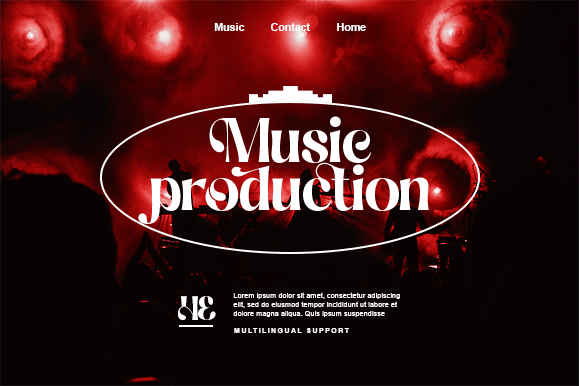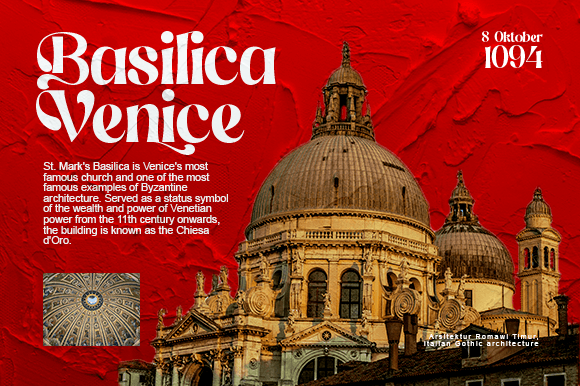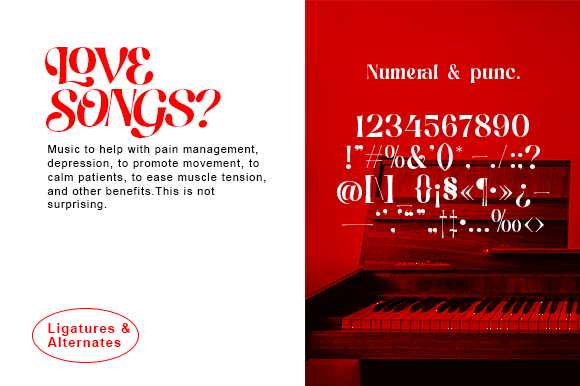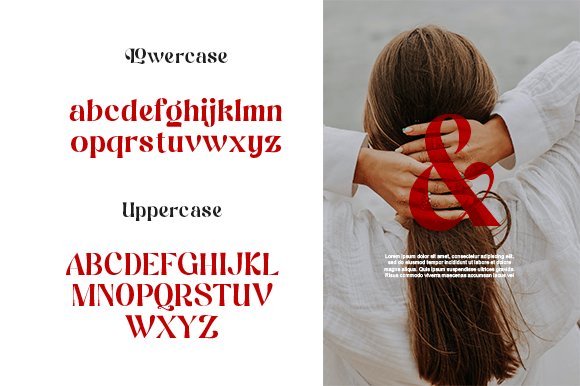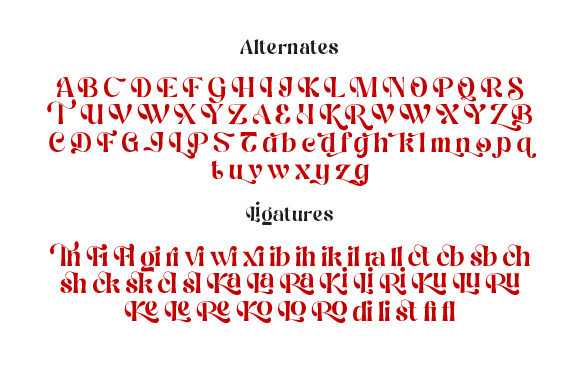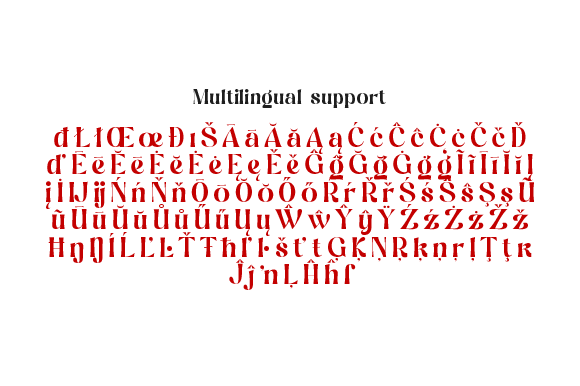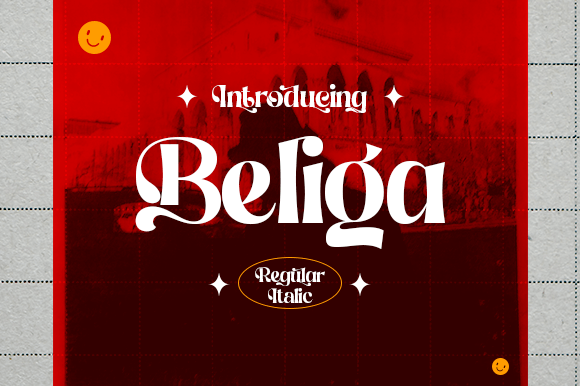
Introducing Beliga Font: Elevate Your Designs with Luxurious Elegance
In the world of typography, a font can make or break the aesthetic appeal of a design project. For designers and crafters seeking to infuse their creations with sophistication and luxury, the Beliga font is an exceptional choice. This stunning serif font is meticulously crafted to bring an air of elegance and refinement to a wide range of applications, from branding and logos to invitations, long texts, and beyond.
The Essence of Beliga Font
Beliga is more than just a font; it’s a statement piece designed to elevate your designs to new heights of luxury and style. Its serif characteristics add a touch of classic sophistication, making it perfect for projects where making a lasting impression is paramount. Whether you’re working on a high-end brand identity, a bespoke invitation, or a comprehensive body of text, Beliga promises to bring a level of elegance and poise that captivates your audience.
One of the standout features of the Beliga font is its incredible versatility. Its design is carefully balanced to ensure it looks as good in short phrases and logos as it does in longer texts. This adaptability makes Beliga an invaluable asset for designers who need a reliable, high-quality font that can seamlessly transition across different types of projects. From the luxury sector to creative industries, Beliga’s wide range of applications knows no bounds.
Perfect for Various Creative Projects
- Branding and Logos: Use Beliga to create a memorable brand identity that exudes luxury and sophistication.
- Invitations: Whether it’s a wedding, gala, or corporate event, Beliga adds an elegant touch to your invitations.
- Long Texts: Its readability and classic appeal make it an excellent choice for books, magazines, and articles.
- Advertising: Stand out in the advertising world with a font that commands attention and conveys a sense of premium quality.
Why Choose Beliga?
Choosing Beliga for your design projects comes with numerous benefits:
- Elegant Design: Its luxurious look adds a sophisticated touch to any design.
- High Readability: Ensures your content is easily readable, even in smaller sizes.
- Time-Saving: With its comprehensive set of characters and styles, you can work more efficiently.
- Cross-Platform Compatibility: Beliga performs beautifully across various platforms and devices.
Tips for Using Beliga Effectively
To maximize the impact of Beliga in your designs, consider the following tips:
- Pair with Simplicity: Let Beliga be the focal point by pairing it with simpler, sans-serif fonts for supporting text.
- Experiment with Sizes: Play with different sizes to create visual hierarchy and emphasize key messages.
- Utilize Ligatures: Take advantage of Beliga’s ligatures for a more elegant and refined look.
Beliga font is a game-changer for designers and crafters aiming to infuse their projects with a sense of luxury and elegance. Its versatile design, coupled with its impeccable style and form, makes it an indispensable tool in your typography arsenal. Whether you’re crafting a brand identity, designing an invitation, or compiling a text-heavy project, Beliga promises to elevate your work to new heights of sophistication. Add Beliga to your creative toolkit today and witness the transformative power of luxurious typography.